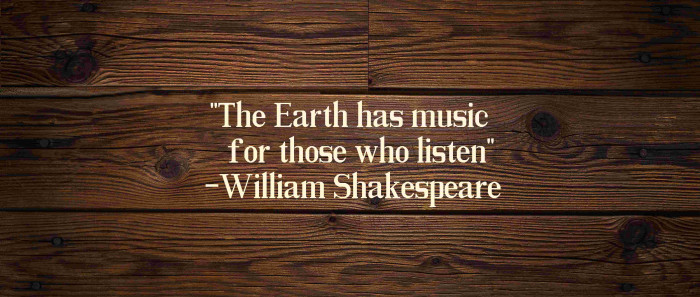
A classic looking serif design with a more box-y modernised look it is pleasant to read. Not sure about the @ though, would it 'integrate' more with thicker verticals on the a?
thx. I'm not sure what you mean by "integrate more with thicker verticals". But if you wish so I guess it will. :)
I mean that with a slightly thicker line on the left and right side of the a in the @ symbol it might be more obvious when used in text. At the moment it looks very delicate but when in a web address the @ seems to disappear.
alright lemme try make it thicker
Your love for Times Roman shows through. The individual letters have a consistent look and energy to them. This font is an excellent candidate for kerning.
L and 4, L and 7, A and Backslash, T and Period, T and Comma, Slash and A, T and 4, L and Backslash, Slash and Slash, Backslash and Backslash, V and Period, V and Comma, L and Apostrophe, L and Quote, 7 and 4, 4 and 7, 7 and A + Many more pairs...
too serious XDD alright i'll kern them
V and 4